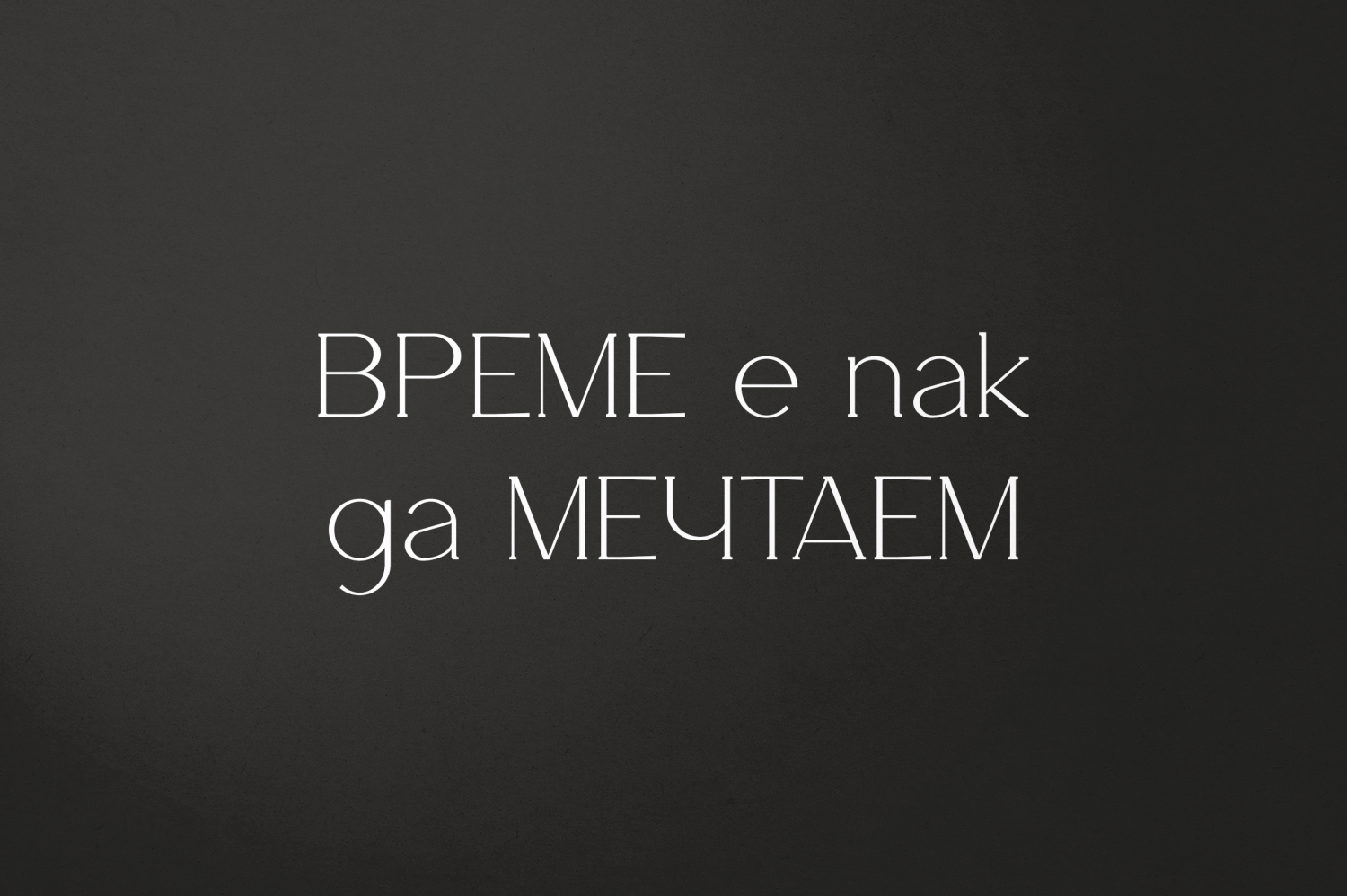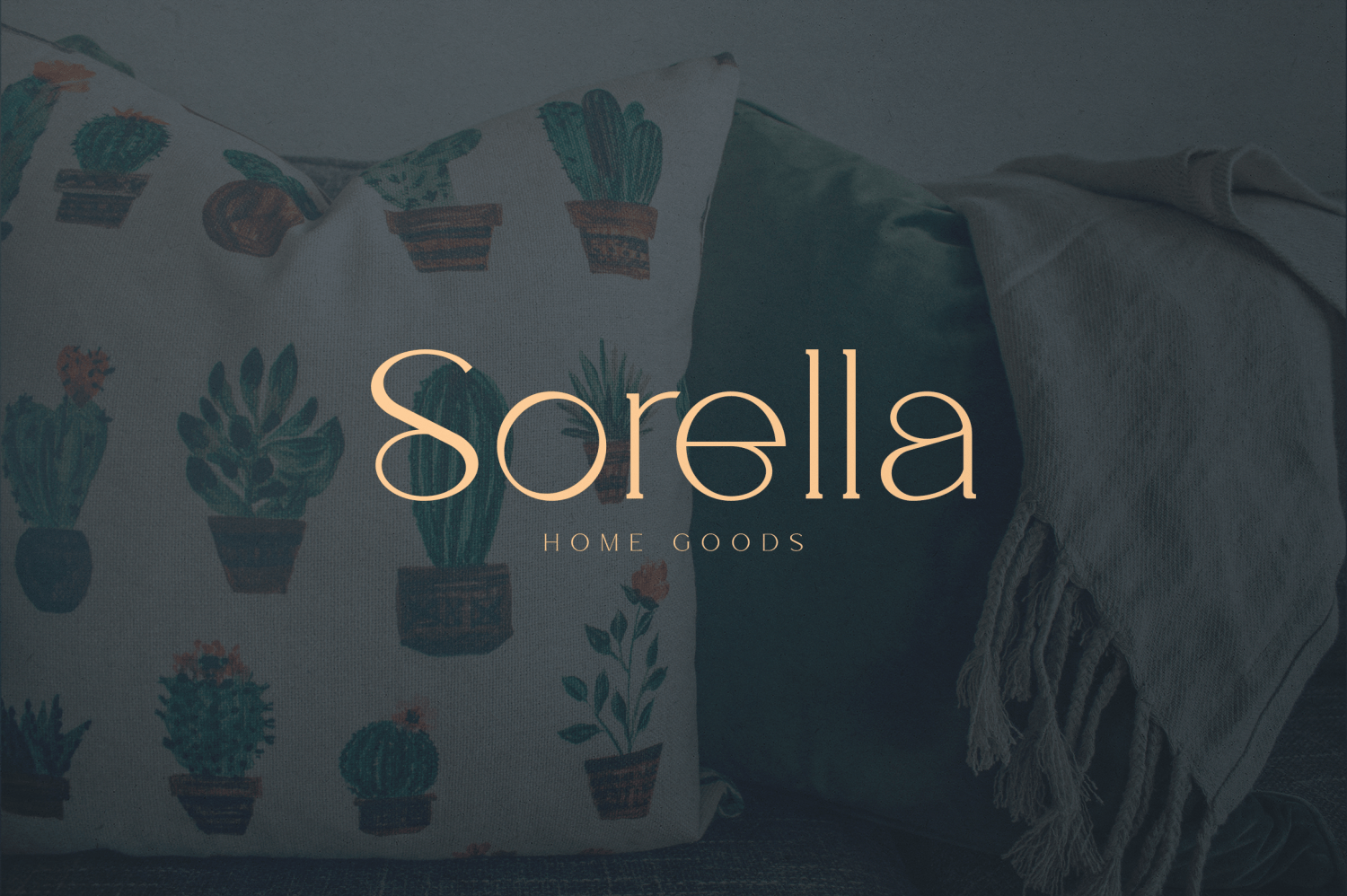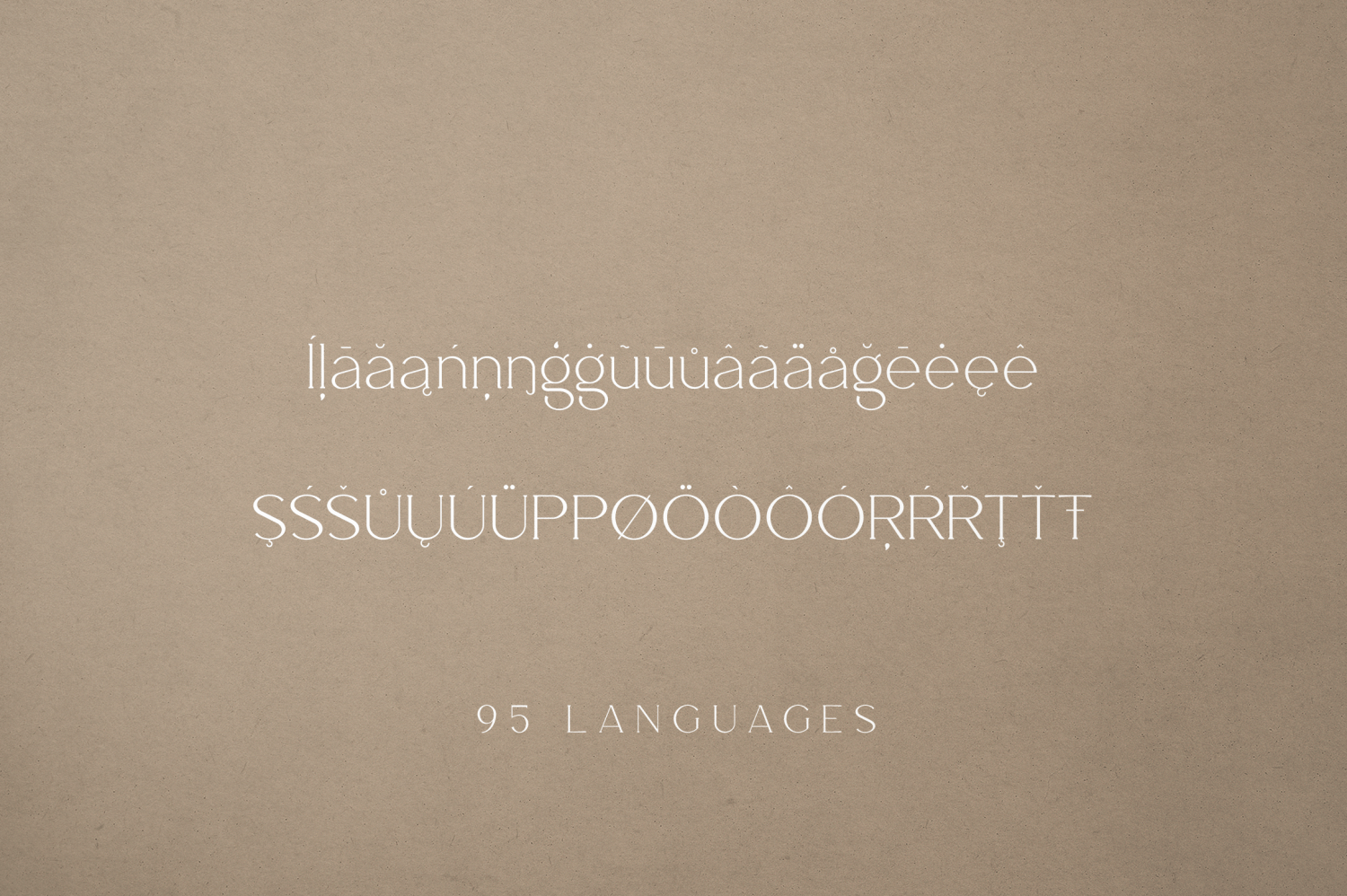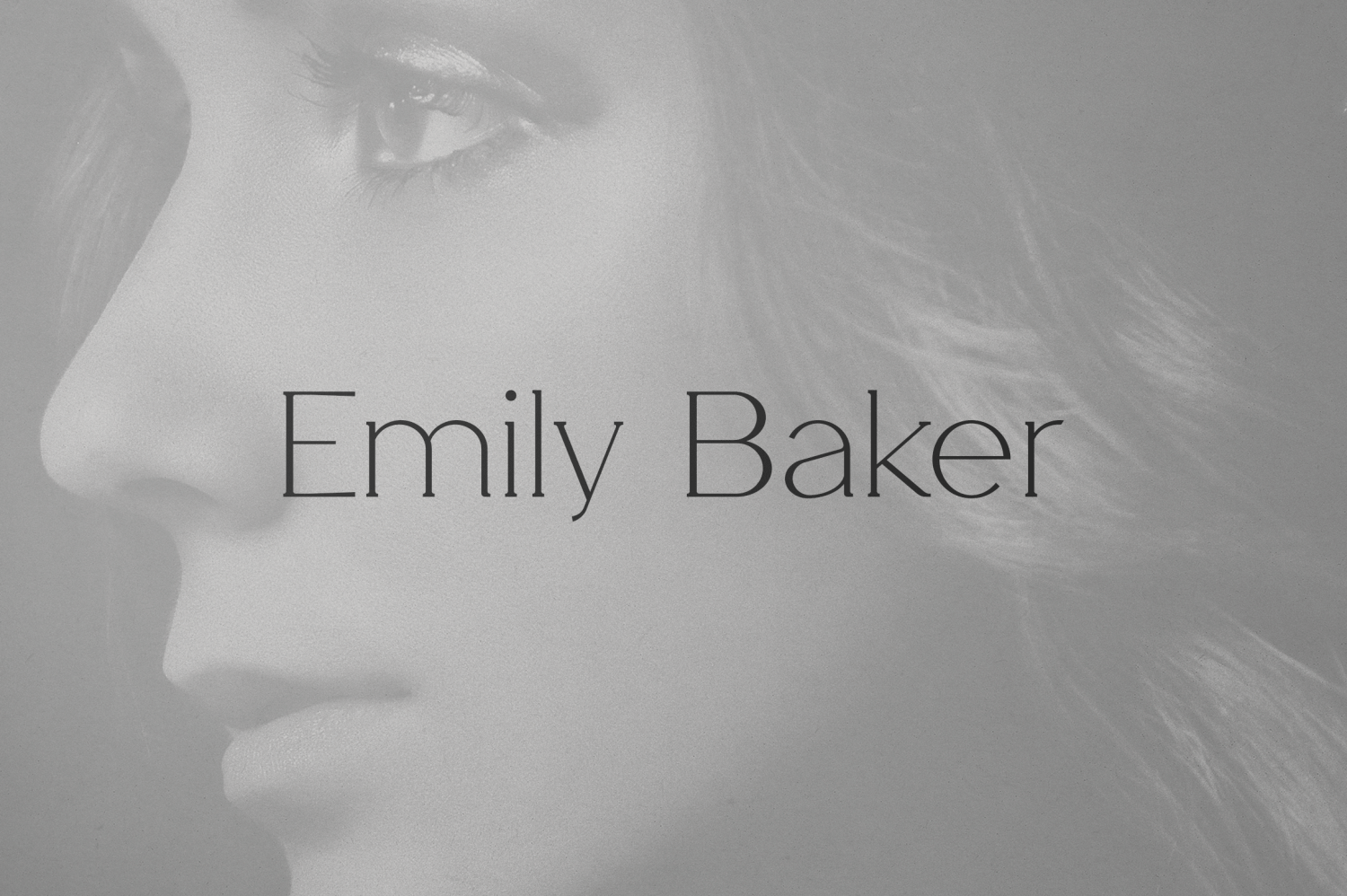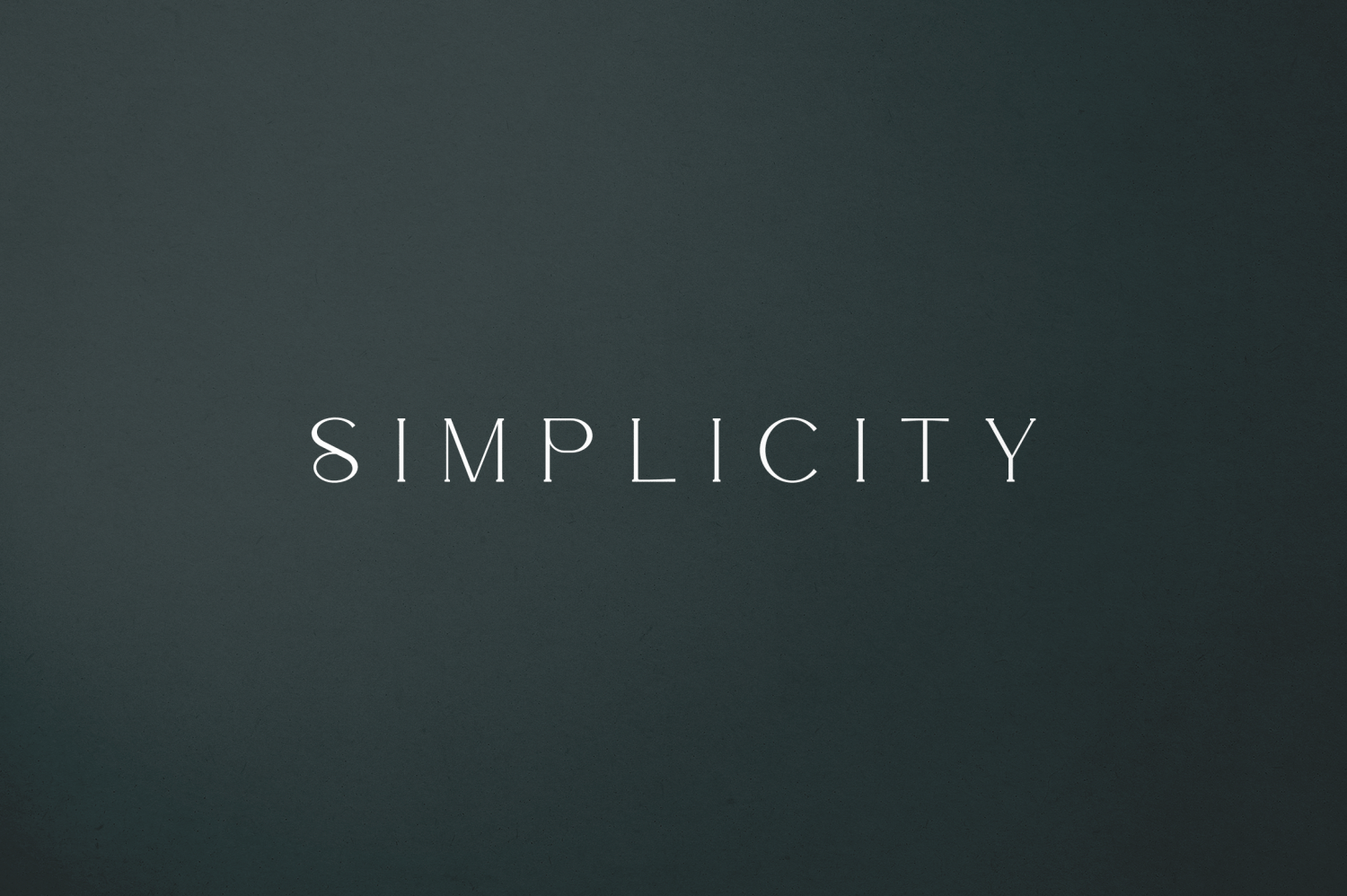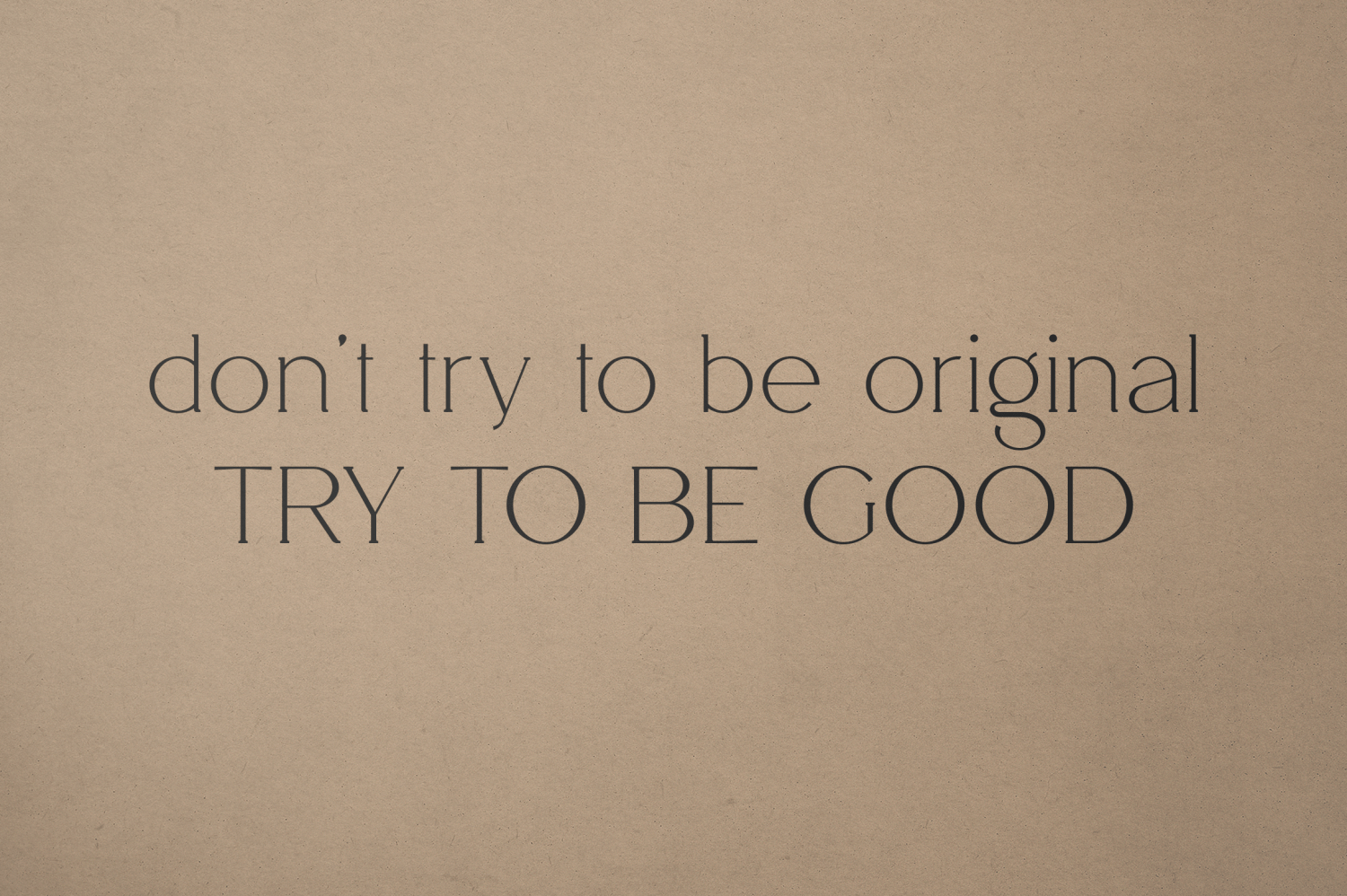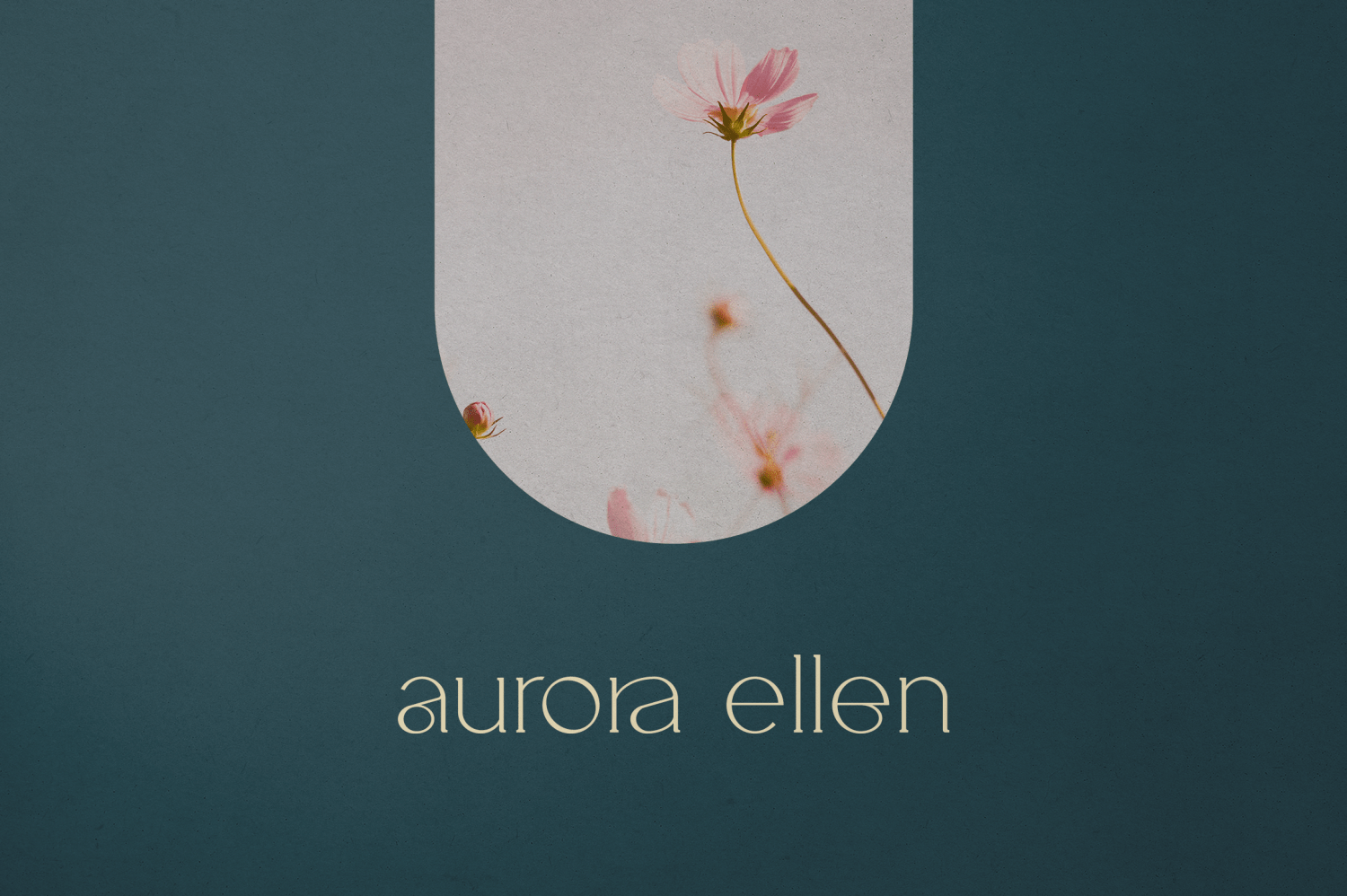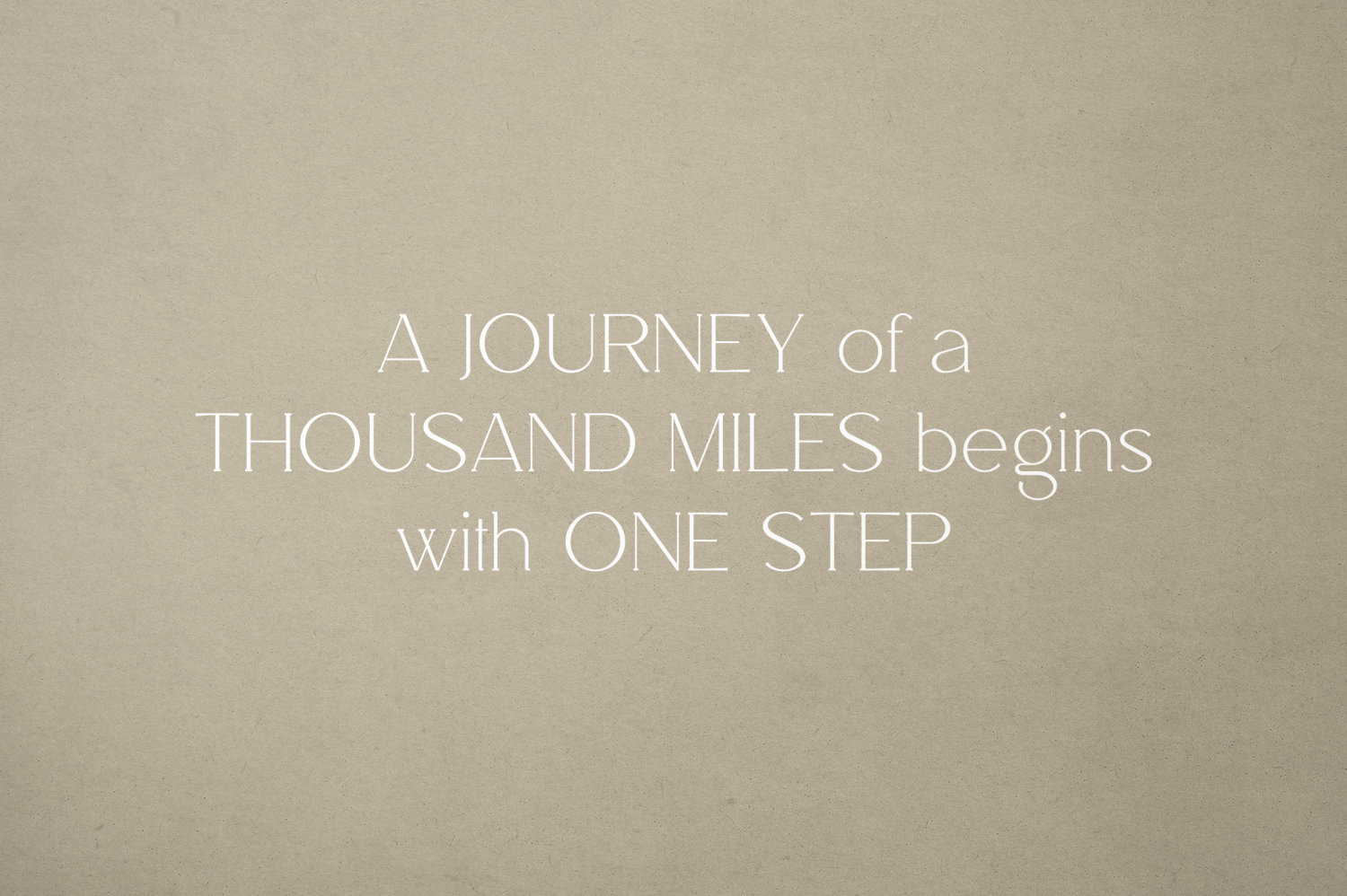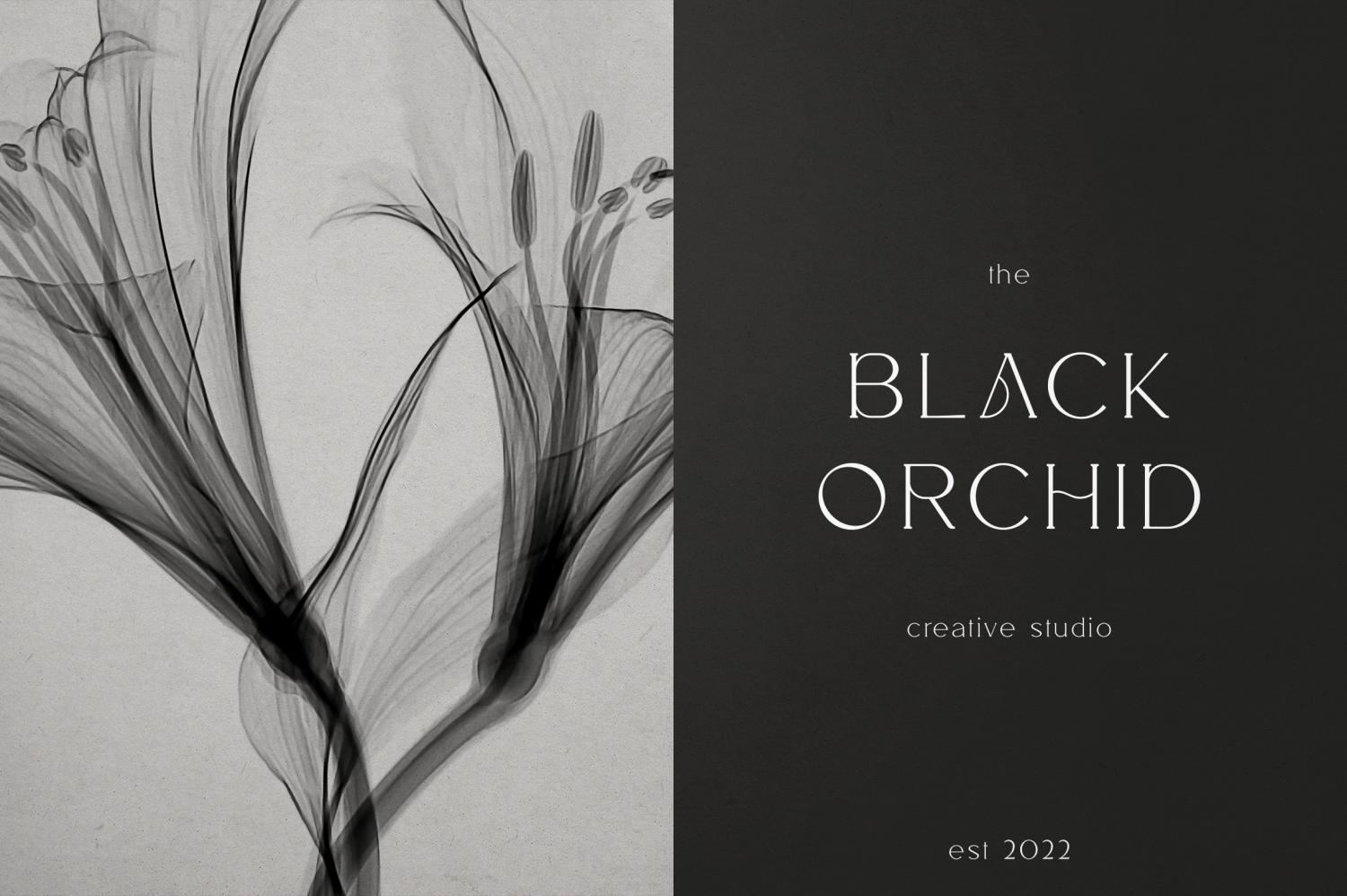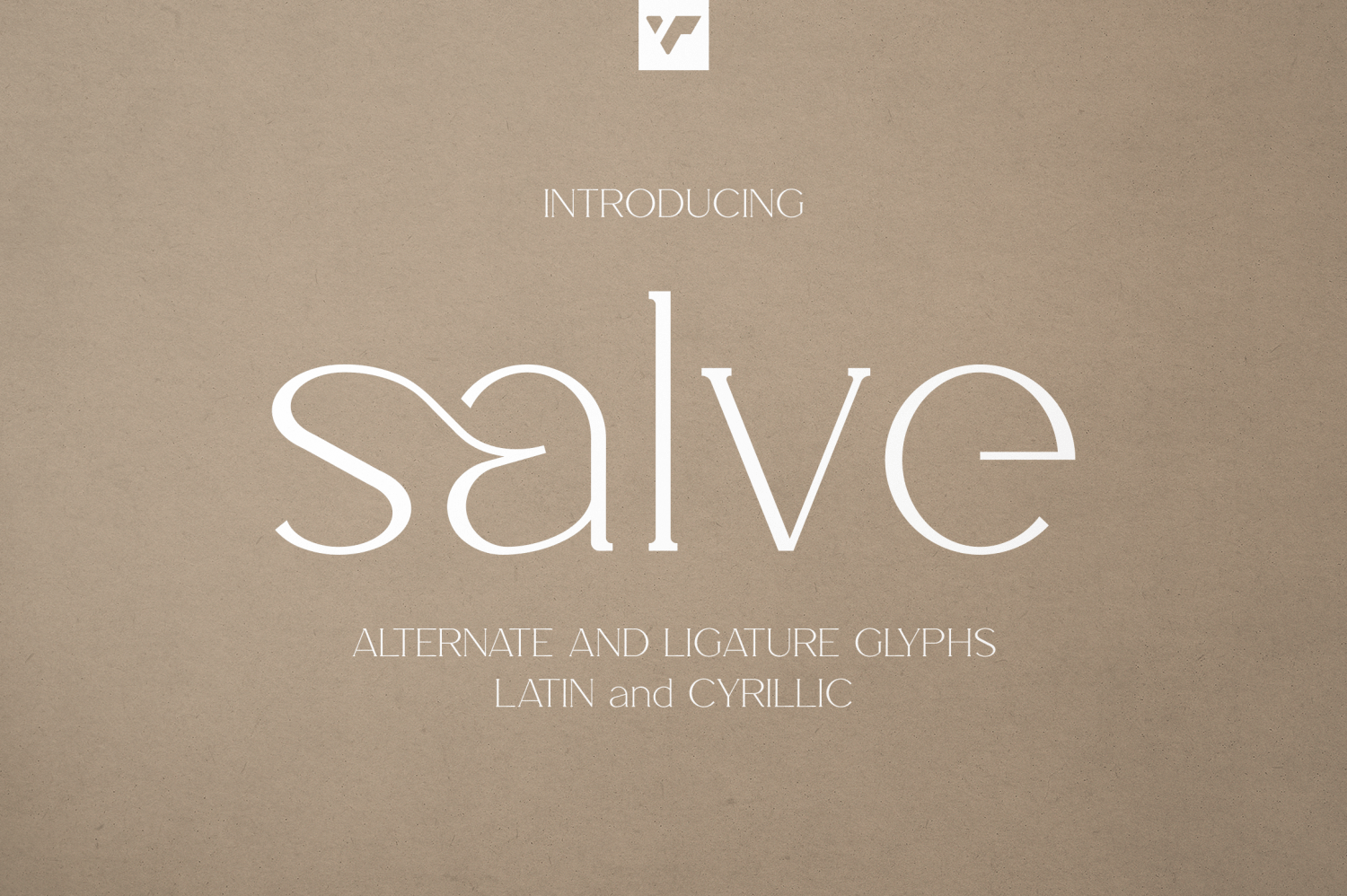
Salve Regular
Introducing Salve – Elegant Serif font – latin and cyrillic Salve is elegant and wide font loaded with 95 languages support, alternate and ligature glyphs to make you typography truly unique! Language Support : Belarusian, Bosnian, Bulgarian,…